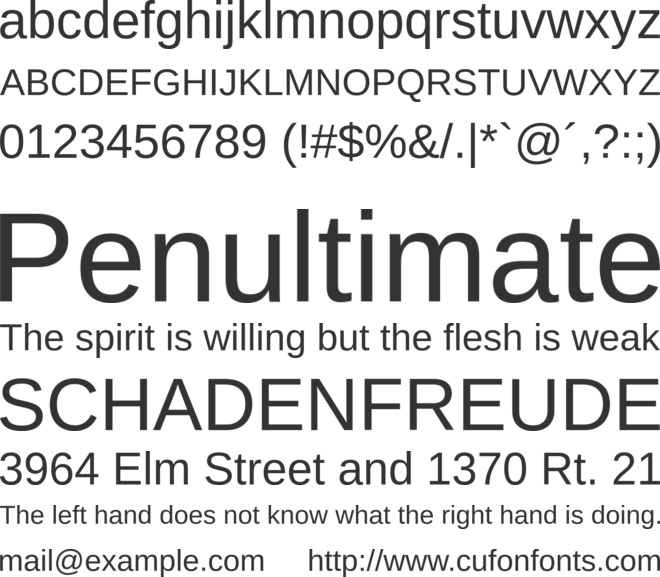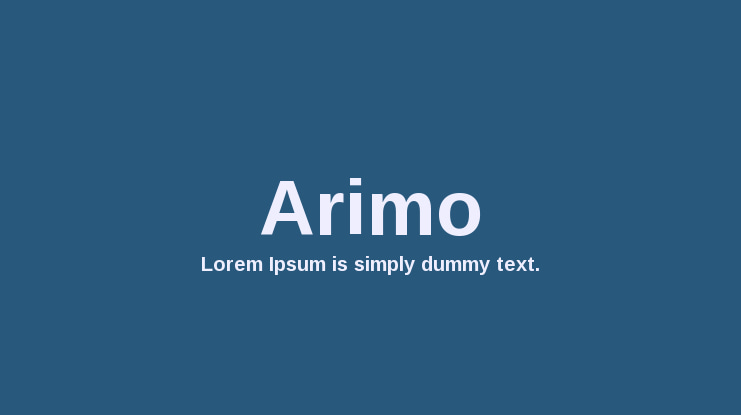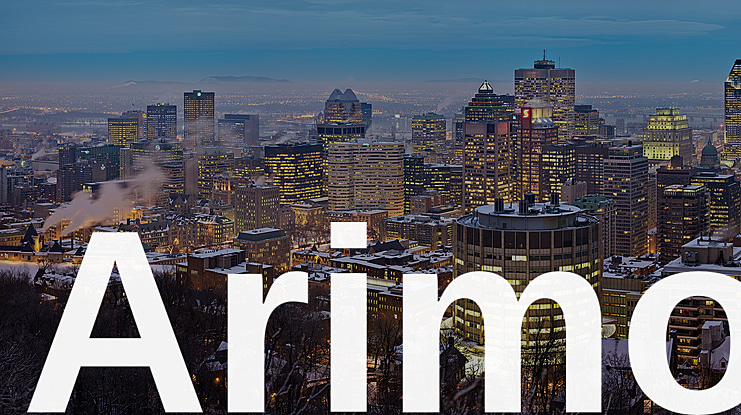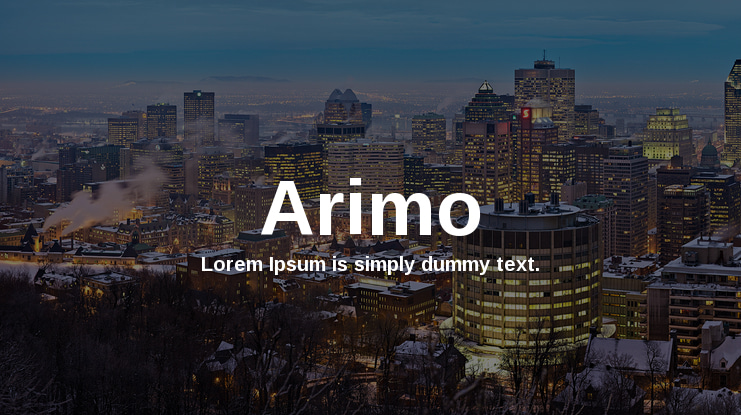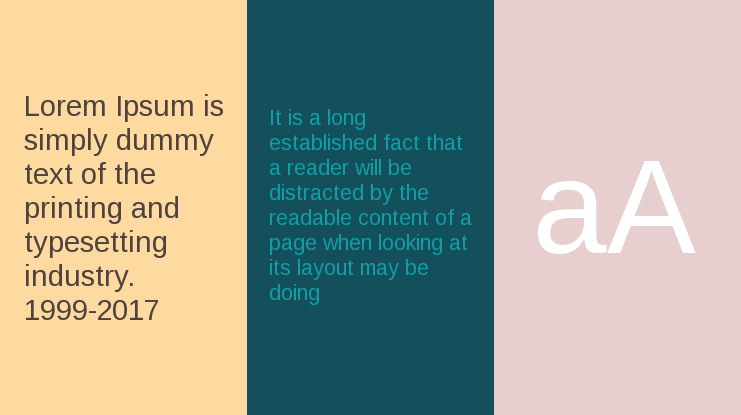
Arimo Font Family
Arimo was designed by Steve Matteson as an innovative, refreshing sans serif design that is metrically compatible with Arial™. Arimo offers improved on-screen readability characteristics and the pan-European WGL character set and solves the needs of developers looking for width-compatible fonts to address document portability across platforms.